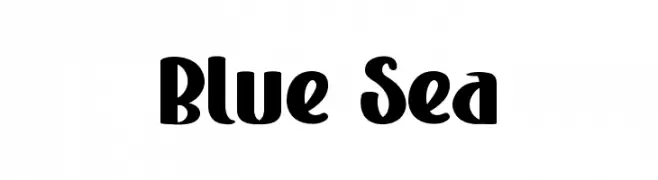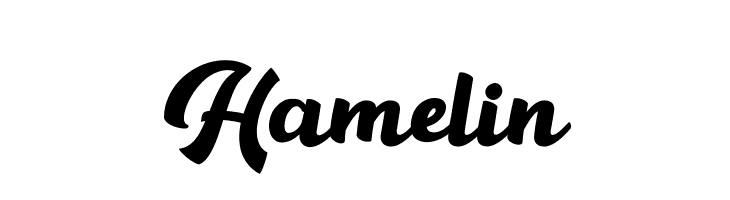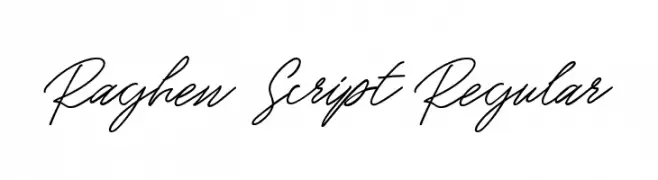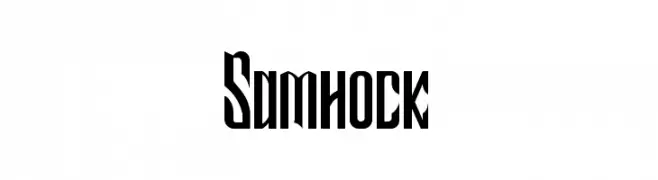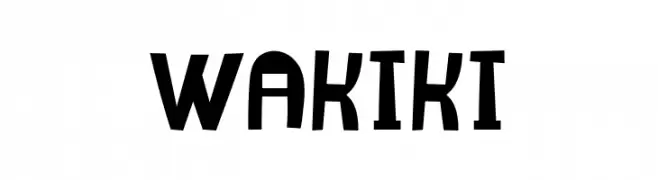
A bold, italicized font with geometric angles and high contrast, perfect for dynamic designs.
A bold, geometric font with sharp angles and a futuristic style.
A playful, bold font with rounded, bubbly characters and a hand-drawn feel.
A playful, bold font with a hand-drawn, whimsical style.
A fluid, elegant script font with a natural handwritten style.
A bold, playful font with a modern and decorative style.
A bold, expressive script font with flowing, interconnected characters.
A lively handwritten font with fluid, dynamic strokes and a casual vibe.
A bold, playful handwritten font with rounded characters.
A lively, cursive font with a natural, handwritten feel.